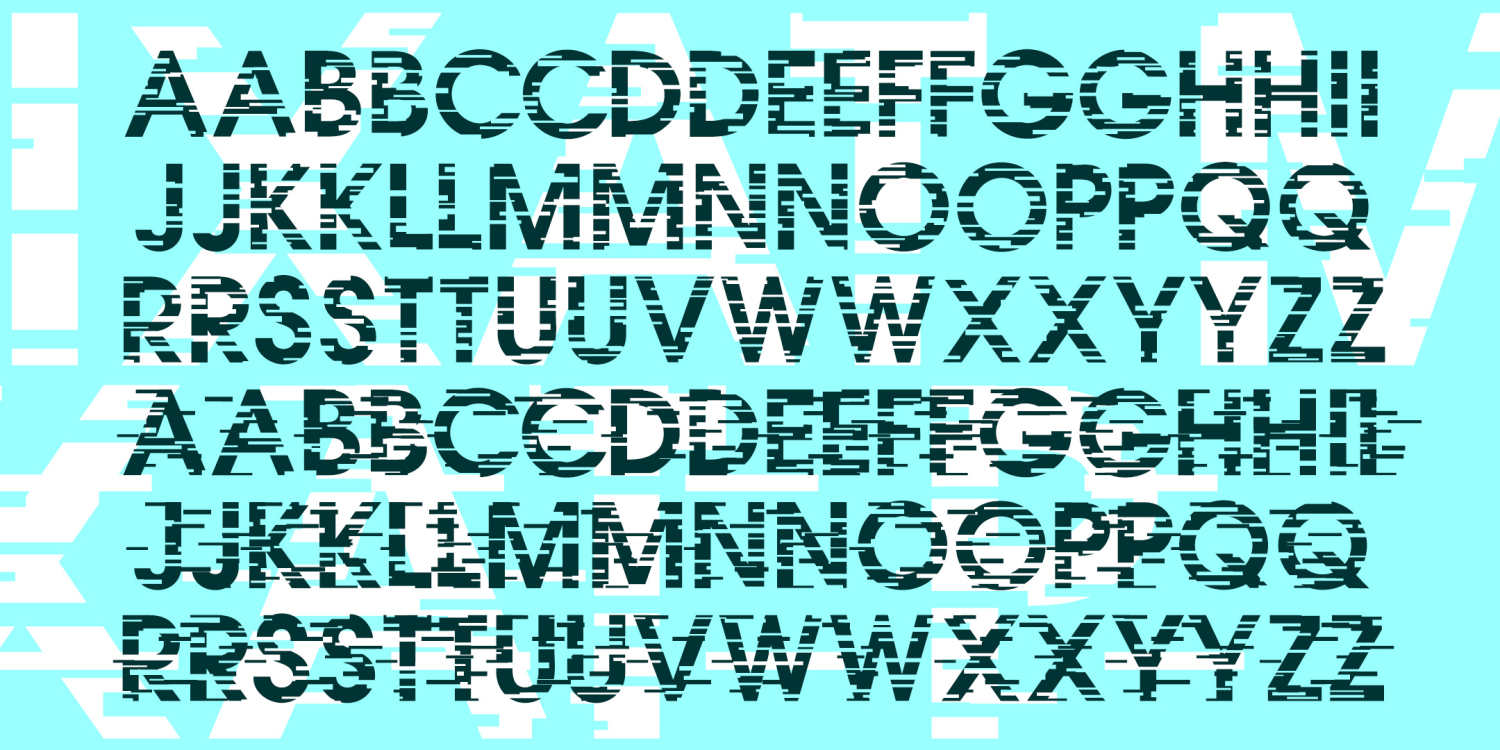
Ixat
About Ixat
IXAT is a pair of bold sans-serif fonts that look like they are in motion or affected by glitches. IXAT MINUS has white streaks removed from the letters as in the top 3 lines of the illustration; IXAT PLUS (bottom 3 lines) adds black streaks for even…